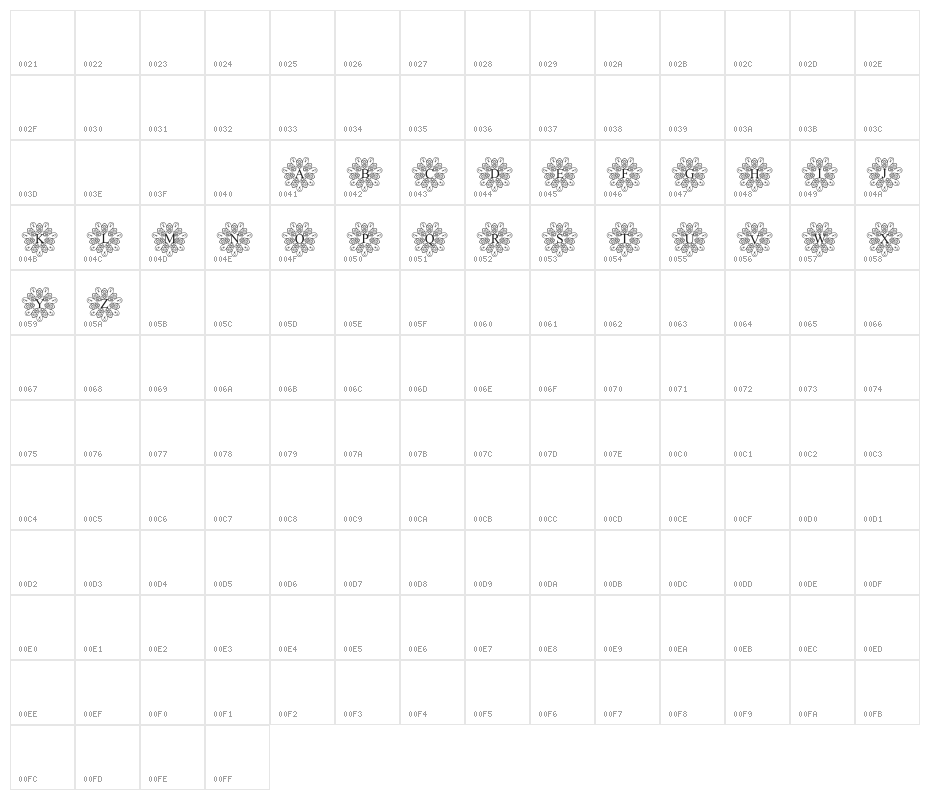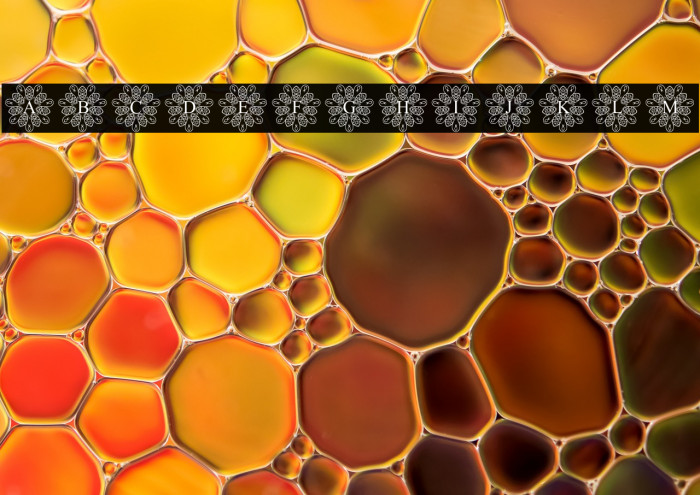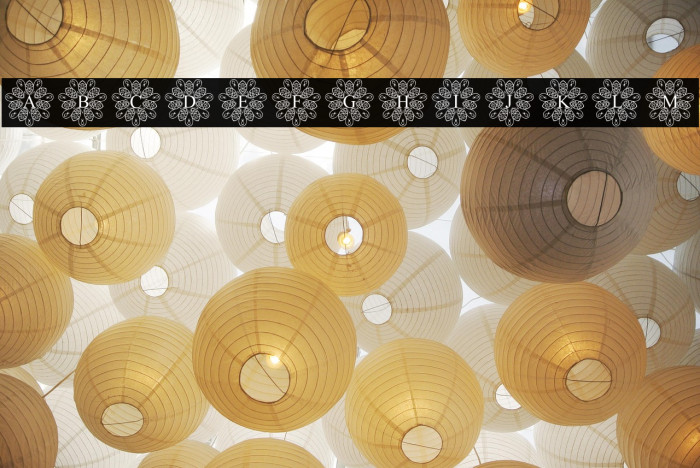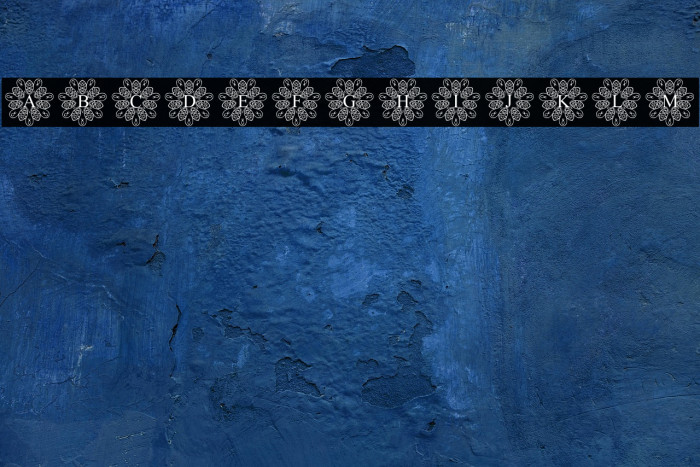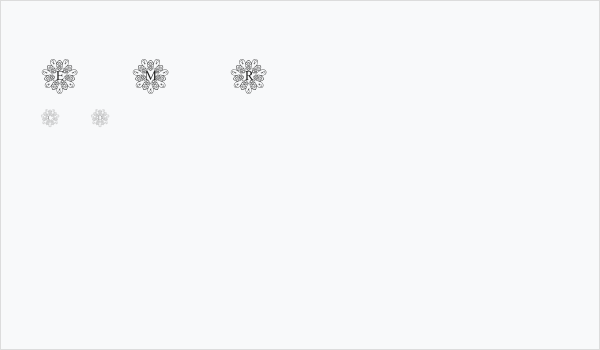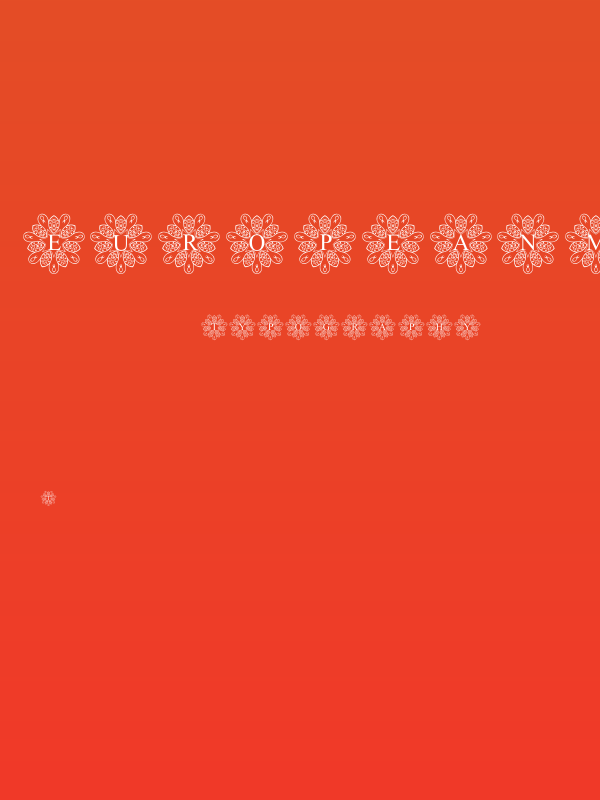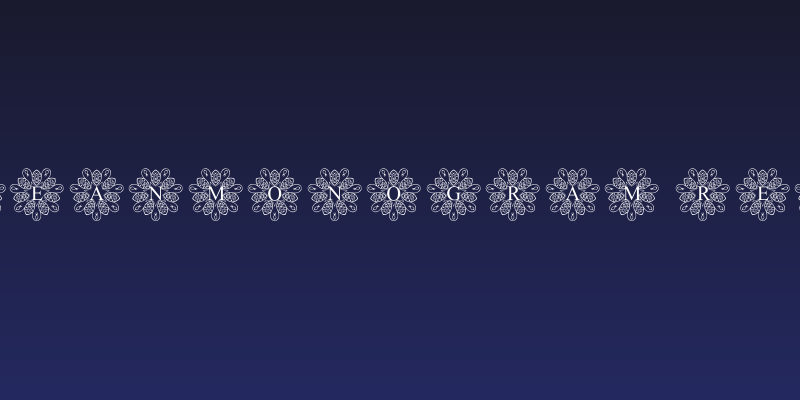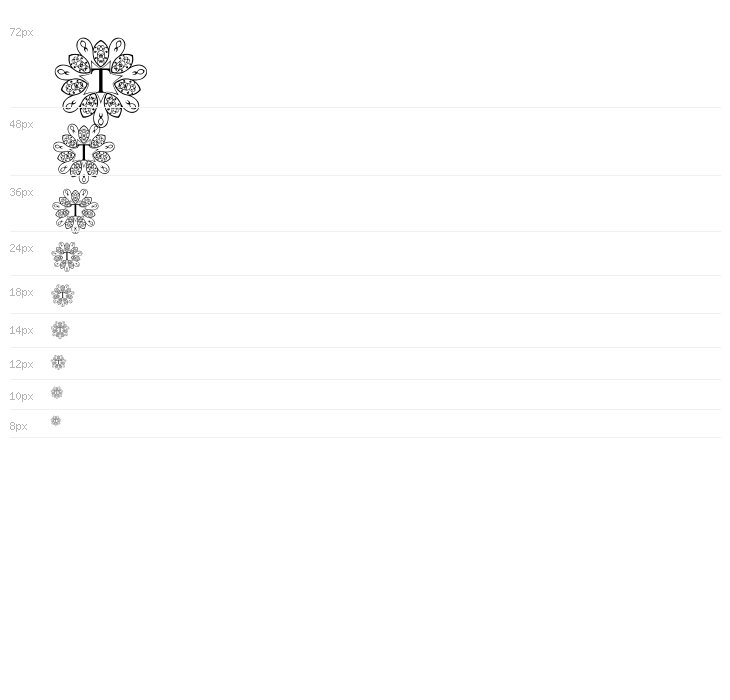
EuropeanMonogram-Regular Font
EuropeanMonogram-Regular Description
This font features an ornate and decorative style, with each letter encased in an intricate floral pattern. The design is reminiscent of traditional European monograms, offering a vintage and elegant aesthetic. The letters are bold and stand out against the detailed background, making them suitable for decorative purposes. The overall look is sophisticated and artistic, ideal for projects that require a touch of classic elegance.
| Use Case | Logos, Decorative elements |
| Proposed Projects | Ideal for wedding invitations, luxury branding, personalized stationery, and decorative monograms. |